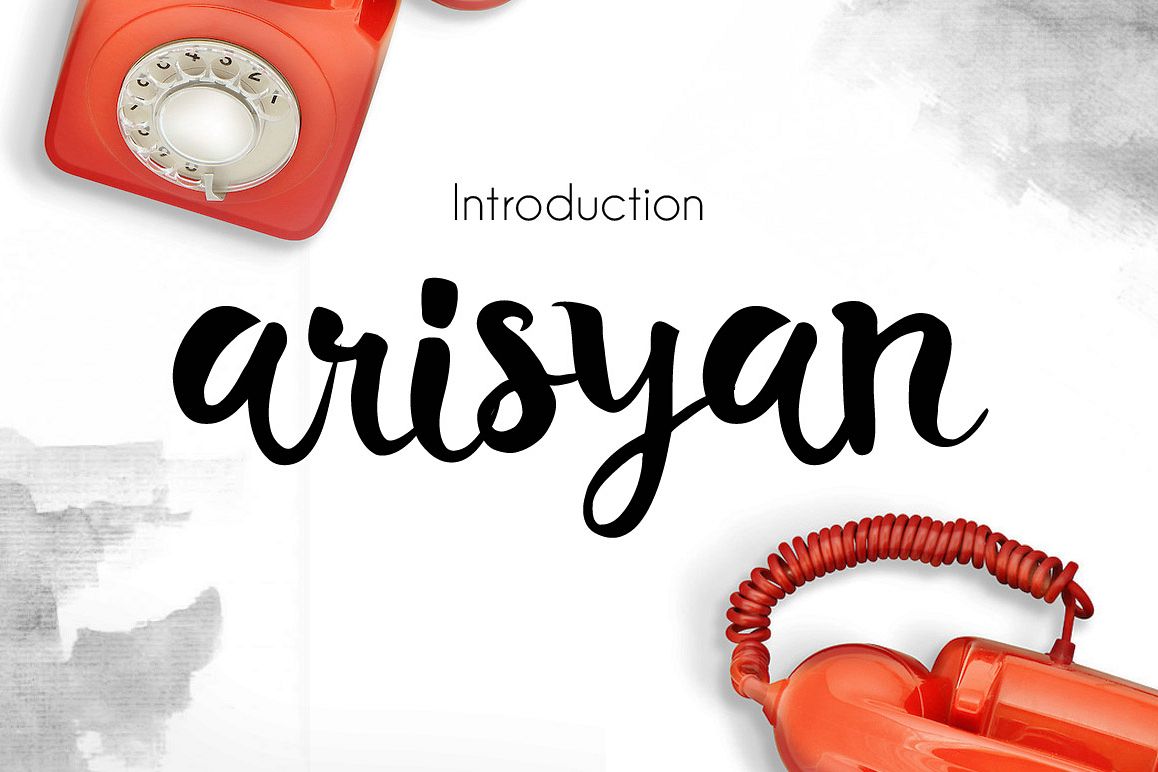
Arisyan Script
Arisyan Script is a hand made painted typeface with a customible style it's perfect for creating a wedding invitation (Initial), a headline, logotype, and t-shirt/ apparel design. The characteristic of Arisyan is flow with the unique handmade touch characteristic.